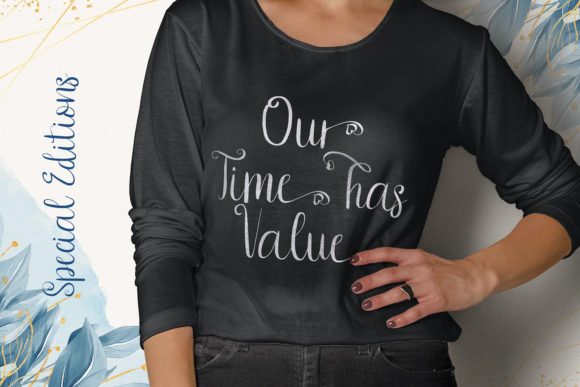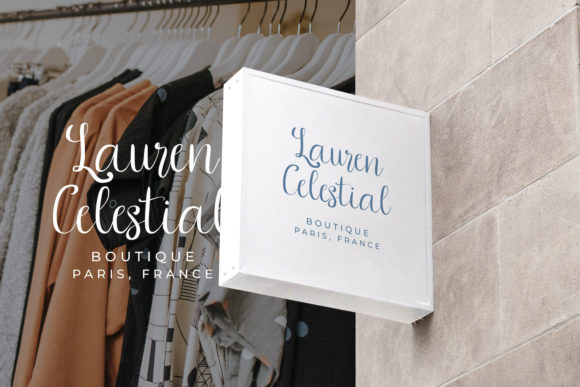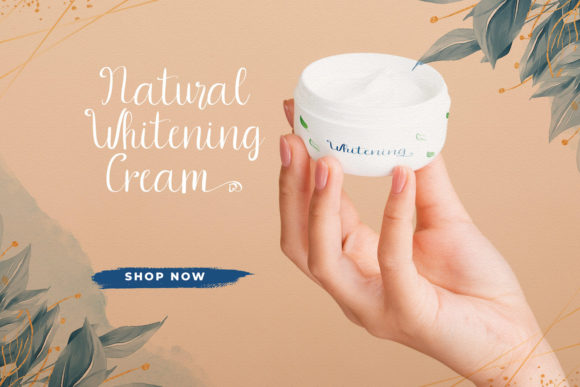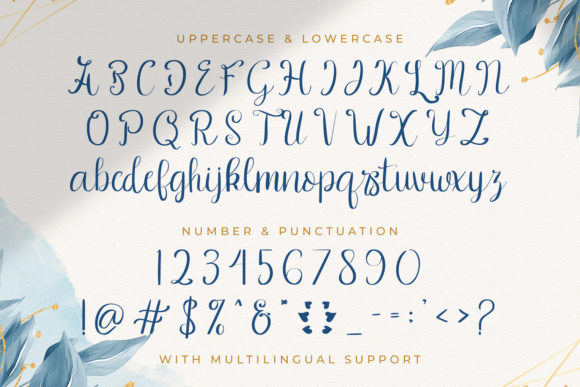
About Jerhiyof Font
Jerhiyof is a truly enchanting font, delicately elegant with flowing handwritten charm. Its beautiful and well-balanced characters make it a perfect fit for a wide variety of design projects. Add this font to your most creative ideas, and witness how it breathes life into them, turning them into captivating works of art.
With its delicate and flowing nature, Jerhiyof adds a touch of sophistication and grace to your designs. Whether it’s crafting wedding invitations, branding materials, or social media graphics, this font enhances each project with its timeless elegance.
The well-balanced characters of Jerhiyof ensure a harmonious visual experience. Its smooth lines and varying baseline add a sense of artistry, making your designs truly mesmerizing.
As a font that is PUA encoded, Jerhiyof offers easy access to all of its glyphs and swashes, empowering you to explore a wide range of creative possibilities. Unlocking its vast potential, you can create unique compositions that reflect your artistic vision.
Jerhiyof’s stunning alternates further enrich your designs. Each character exudes a sense of creativity, allowing you to craft a personalized touch that sets your work apart.
For logos, branding, and business cards, Jerhiyof becomes an iconic representation of your brand’s elegance and sophistication. Its flowing handwritten style captures attention and leaves a lasting impression on your audience.
Incorporating Jerhiyof into your most creative ideas adds a touch of magic. The font’s delicate and elegant essence breathes life into your designs, turning them into true expressions of beauty and artistry.
In summary, Jerhiyof is more than just a font; it’s an exquisite blend of delicacy, elegance, and flowing charm. Embrace its beauty and notice how it enhances a wide range of design projects. With its well-balanced characters and versatile features, Jerhiyof inspires your creativity, making your most imaginative ideas come alive in breathtaking ways that leave a lasting impact on all who encounter them.